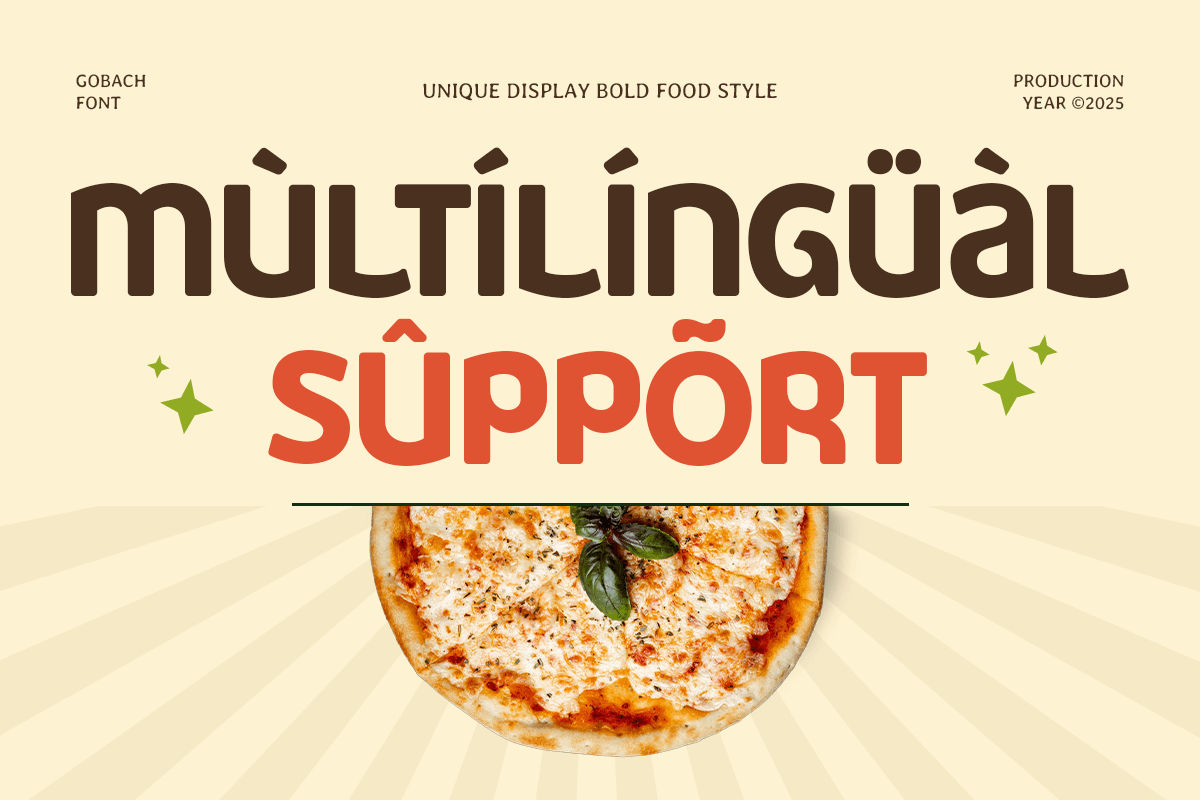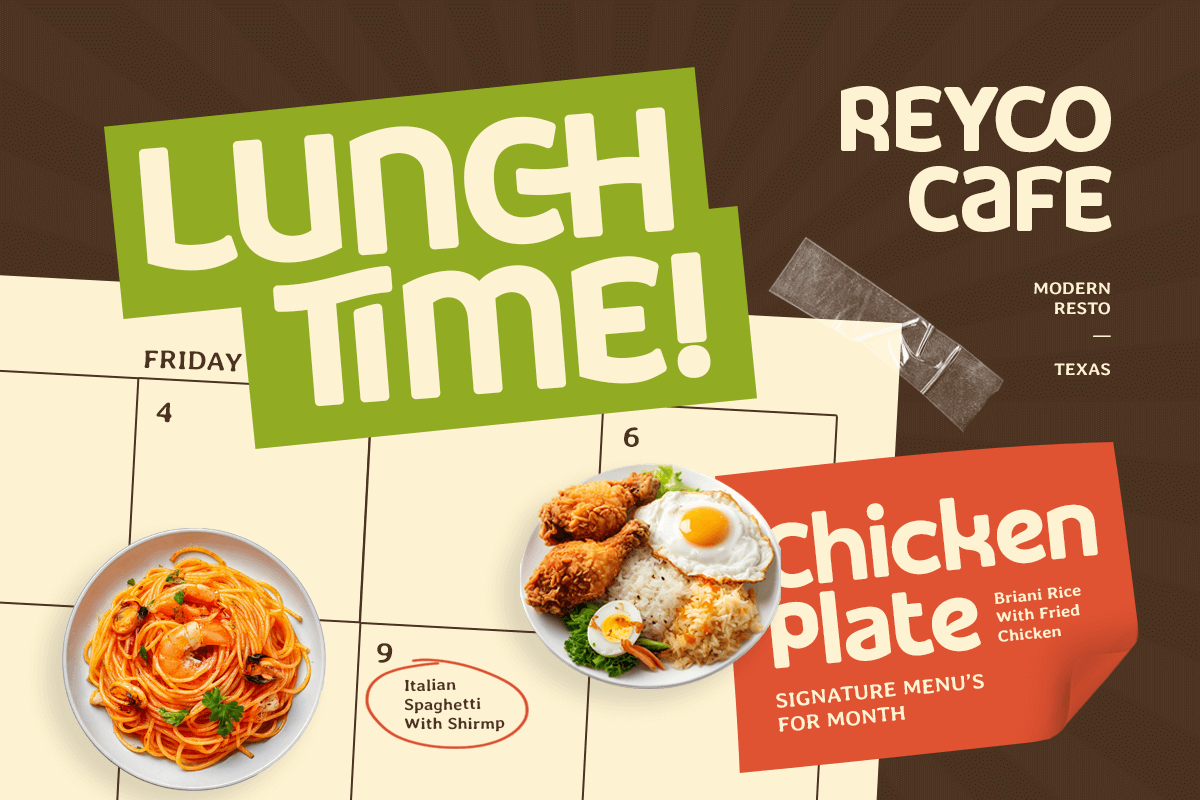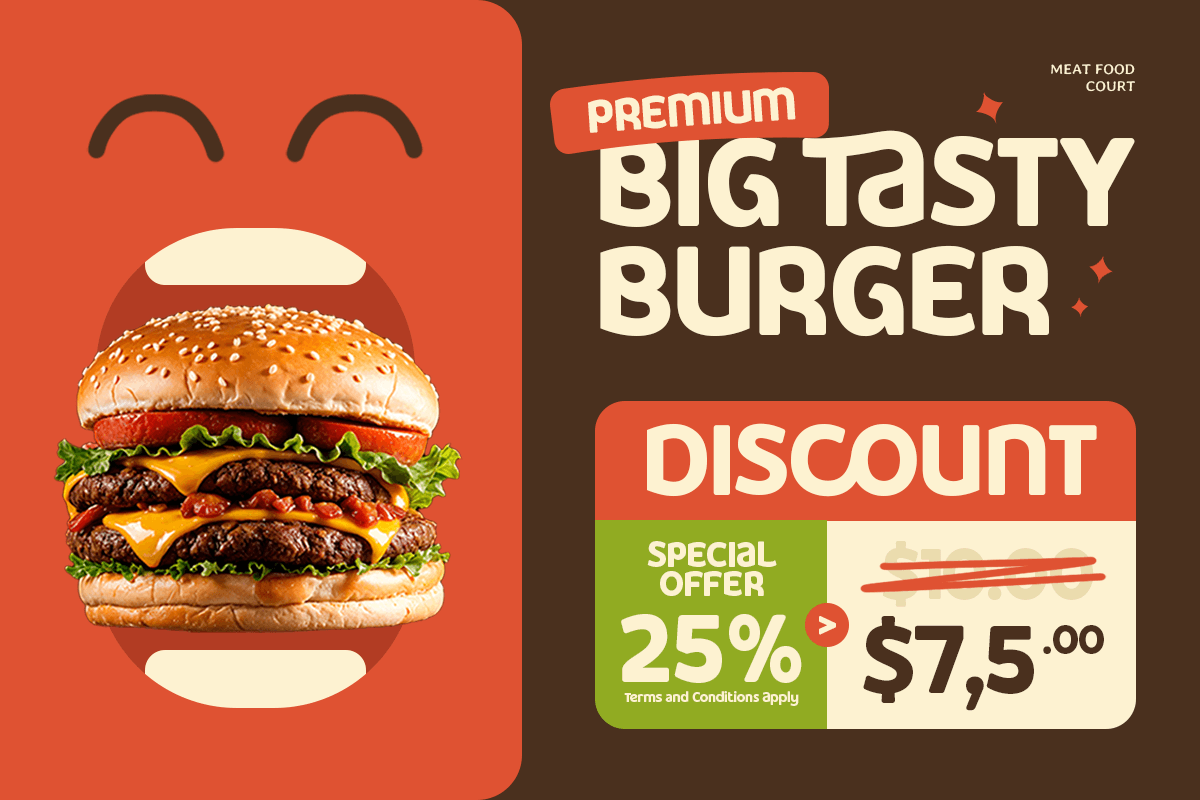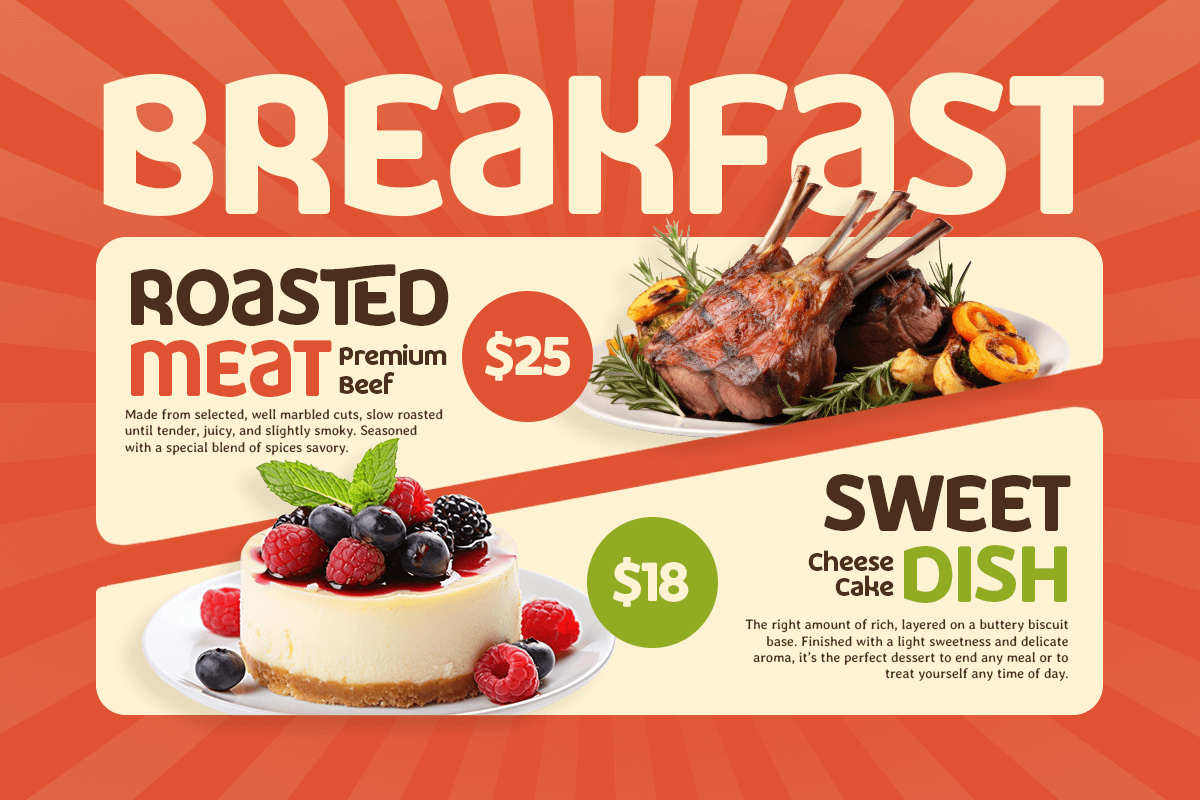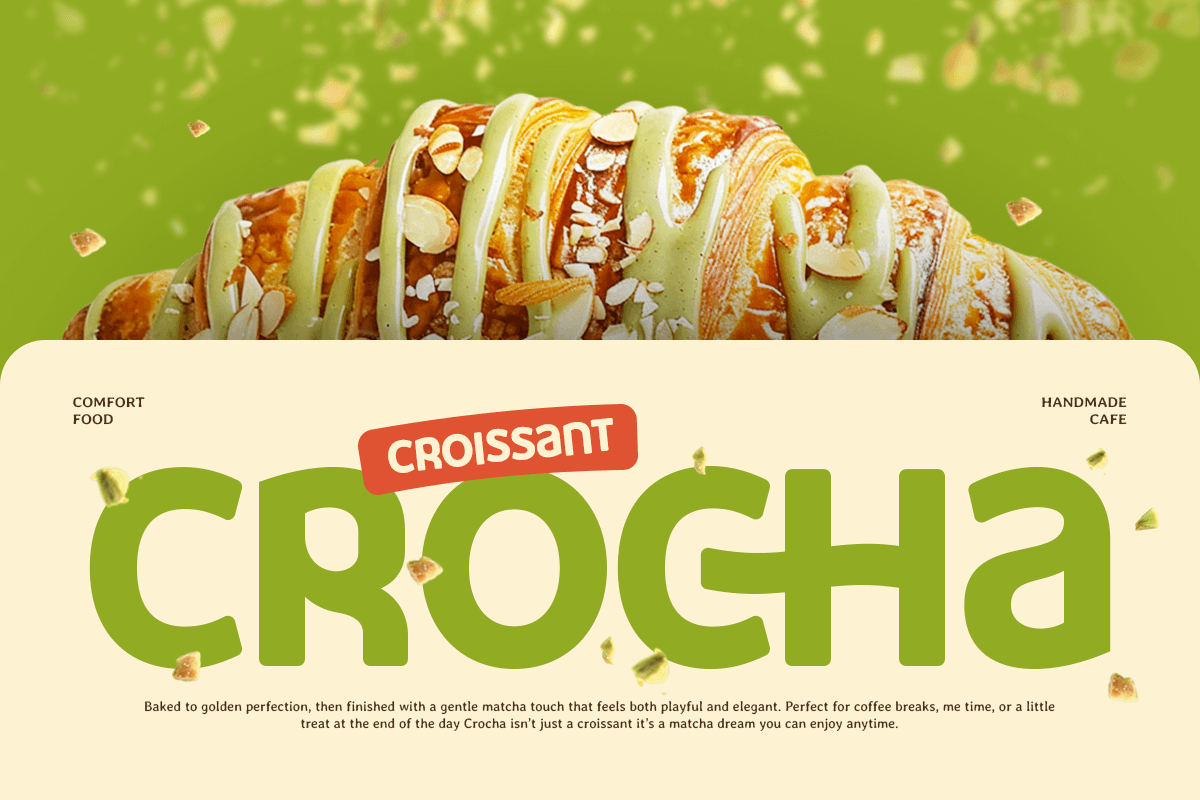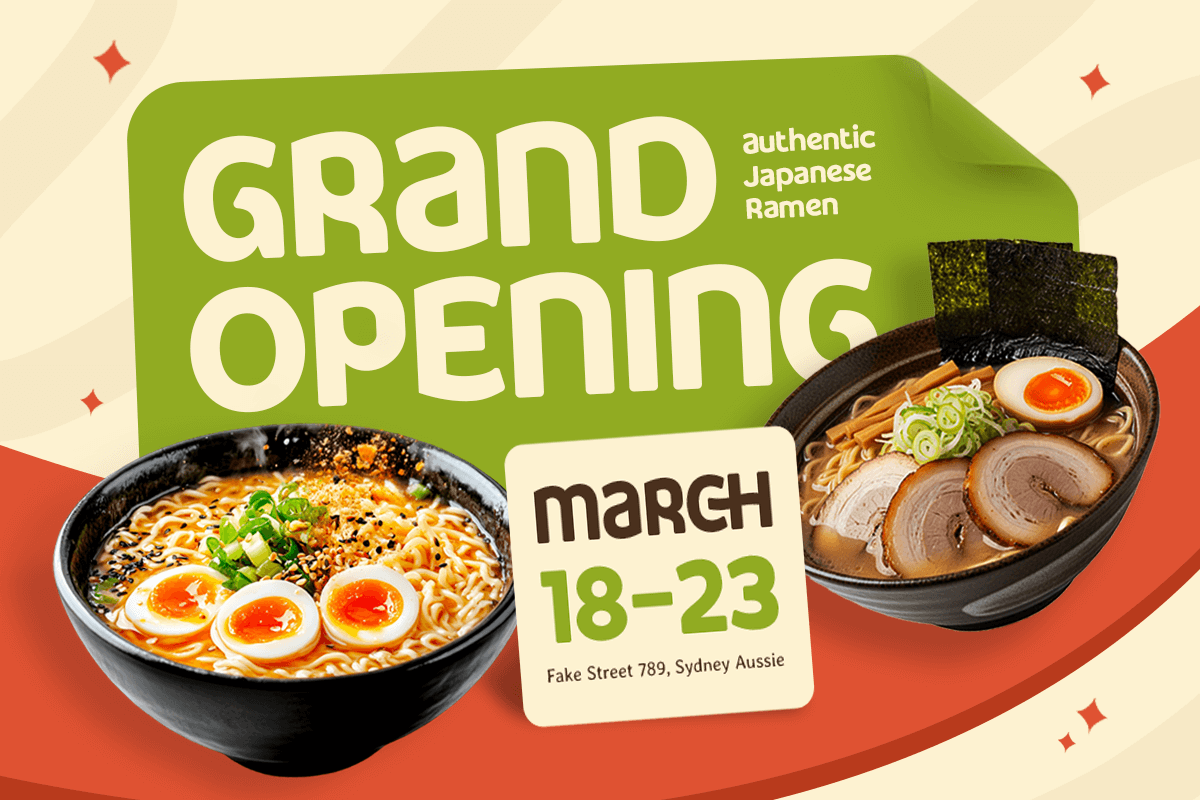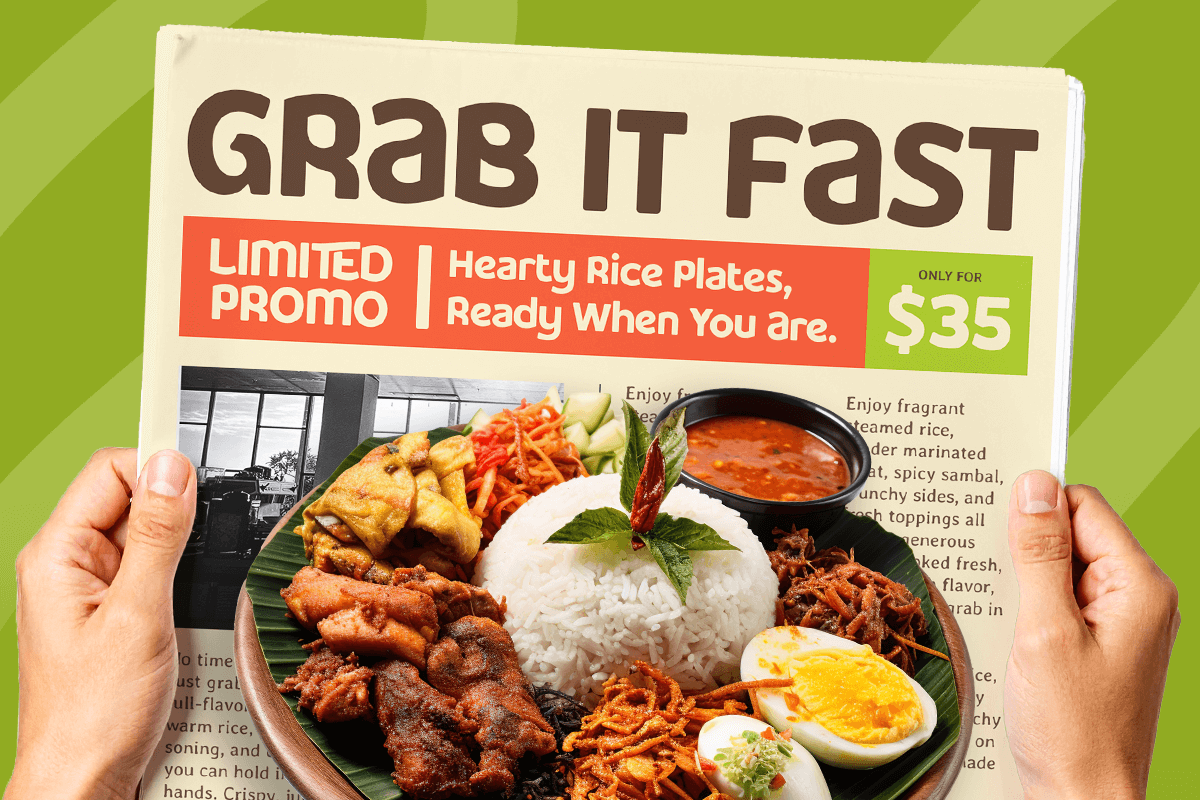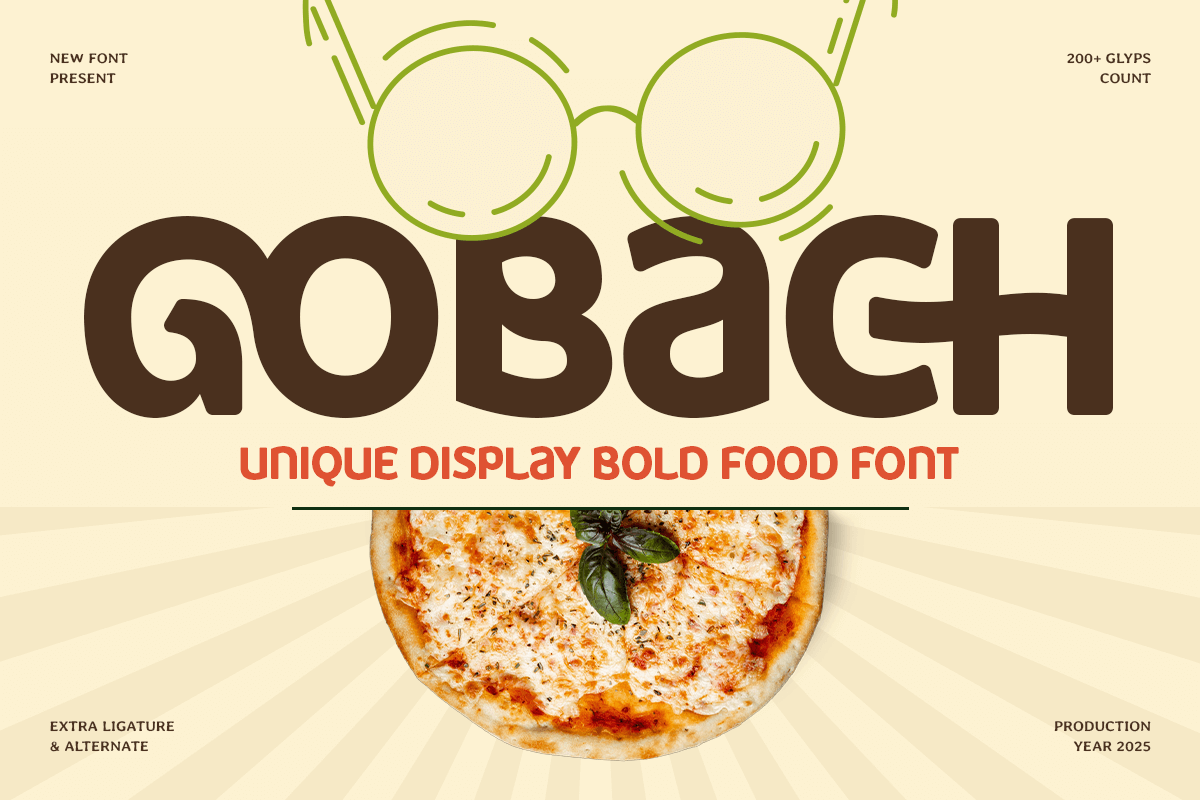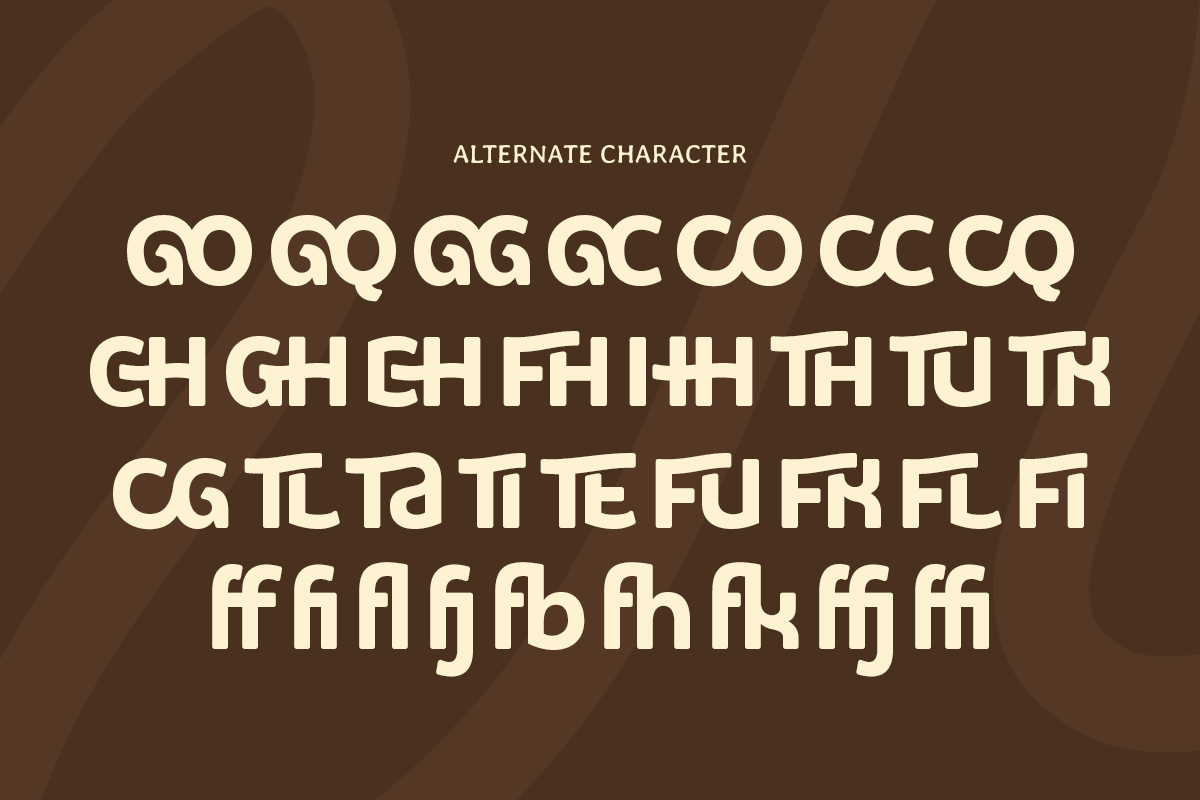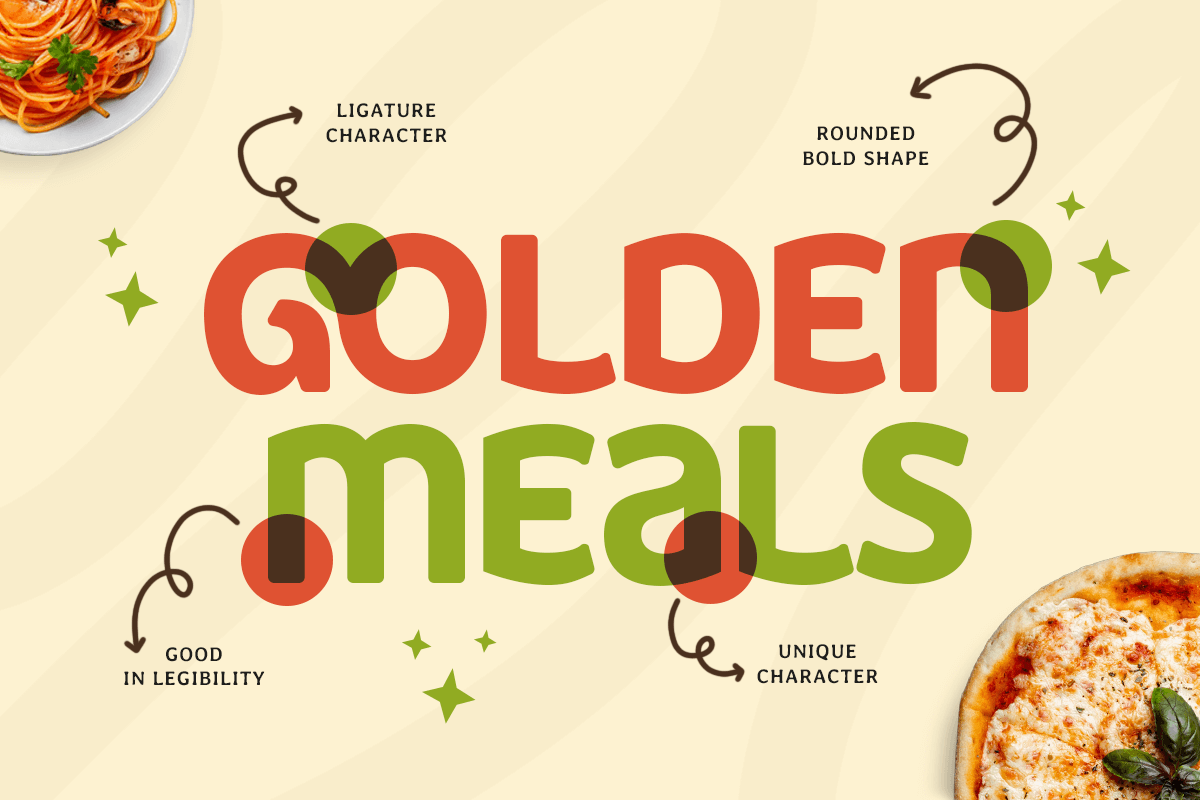
Gobach - Unique Bold Food Font
Gobach – Unique Display Bold Food Font
Gobach is a bold and playful display font specially crafted for food-related designs and appetizing branding. With its thick strokes, rounded shapes, and expressive character style, Gobach instantly creates a fun, tasty, and eye-catching visual perfect for food logos, menus, packaging, posters, and restaurant branding.
Designed to stand out and stimulate appetite, Gobach brings a friendly and energetic personality to your typography. Its bold display form ensures excellent readability while adding a unique flavor that works perfectly for cafés, street food brands, snacks, beverages, and creative culinary projects.
Gobach – Unique Display Bold Food Font Features:
* Bold display style with playful and food-friendly character
* Ideal for food logos, menus, packaging, and branding
* Uppercase, lowercase, numerals, and punctuation included
* Thick strokes with rounded, expressive letterforms
* Perfect for fun, bold, and appetizing visual designs
Serve your designs with personality using Gobach – the bold food font made to attract, delight, and inspire.